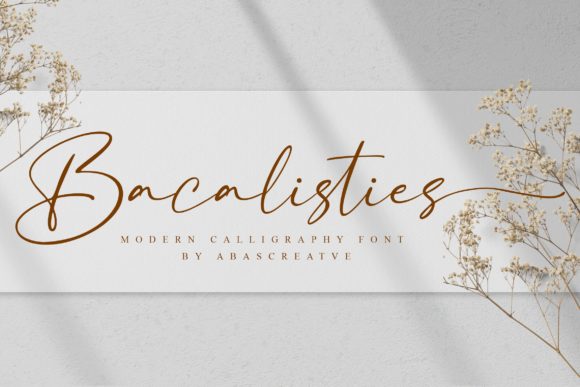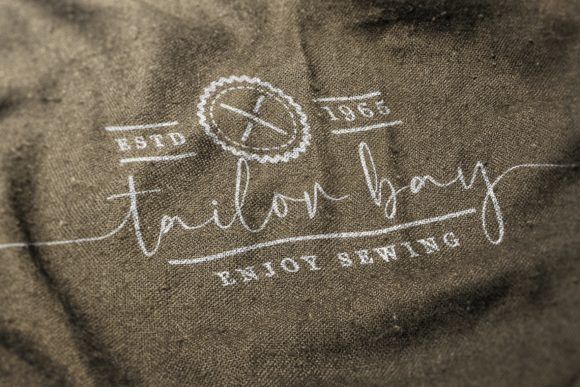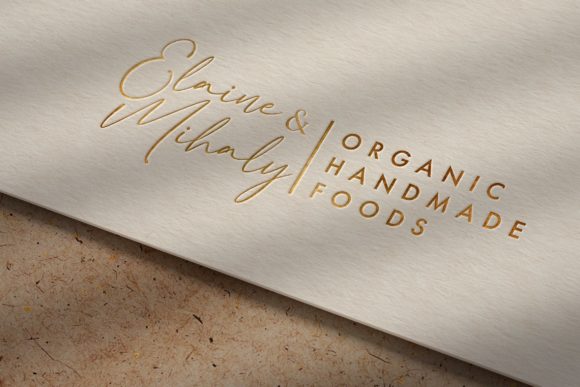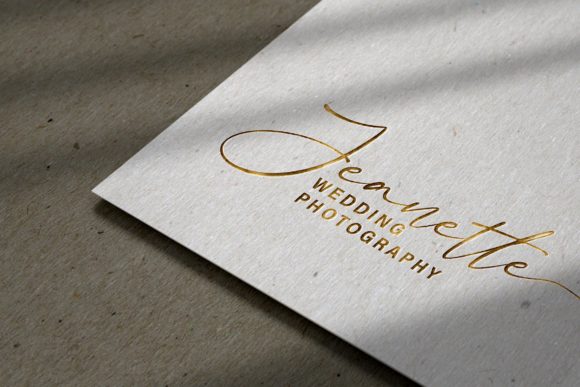
About Bacalisties Font
Bacalisties is a stylish and delicate handwritten font. It has a clean, thin and smooth vibe and it will be a hit for any design that you want to add it to.